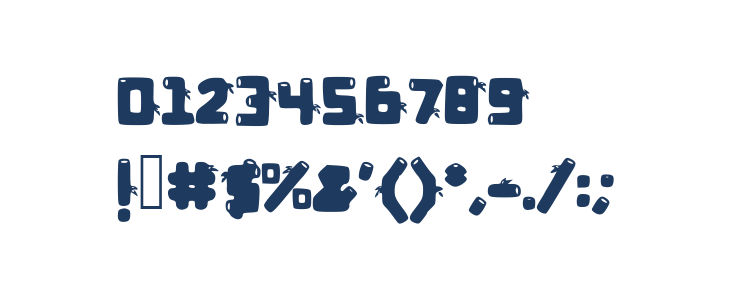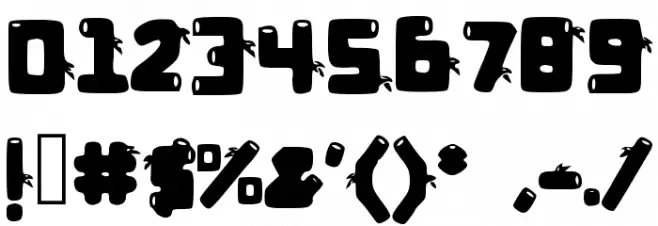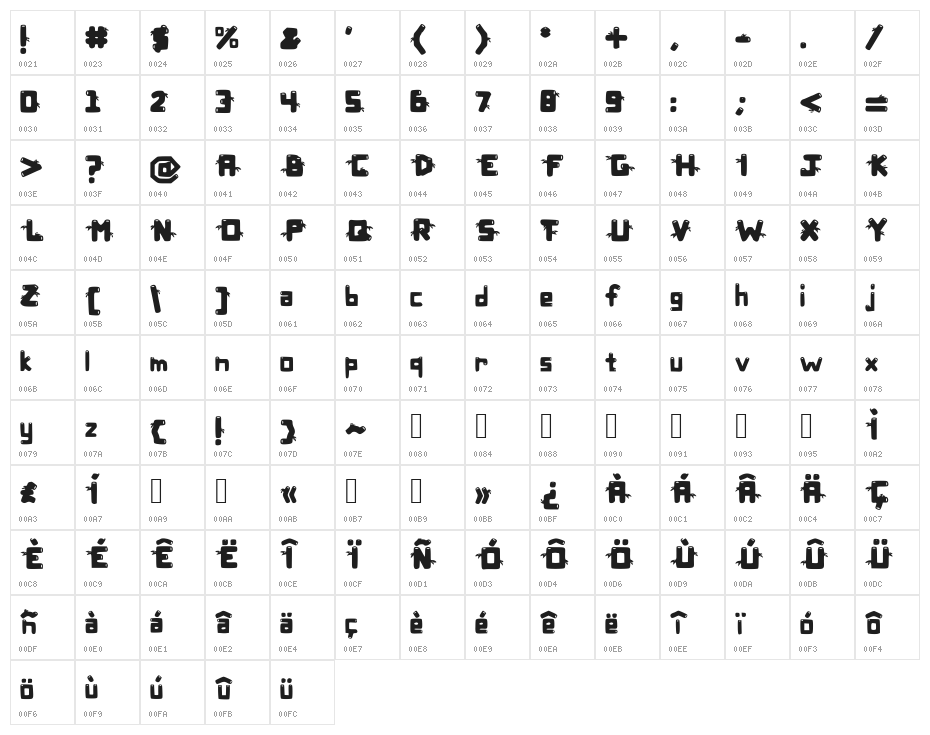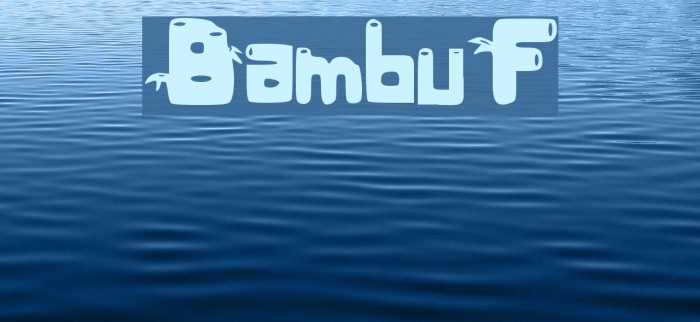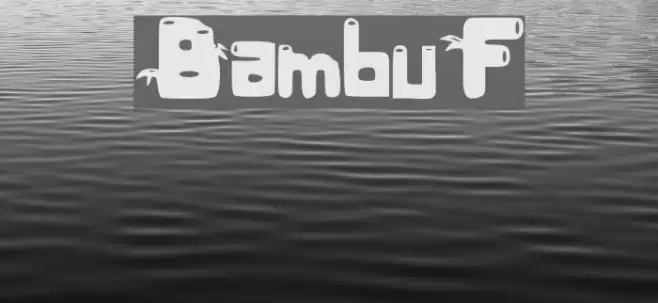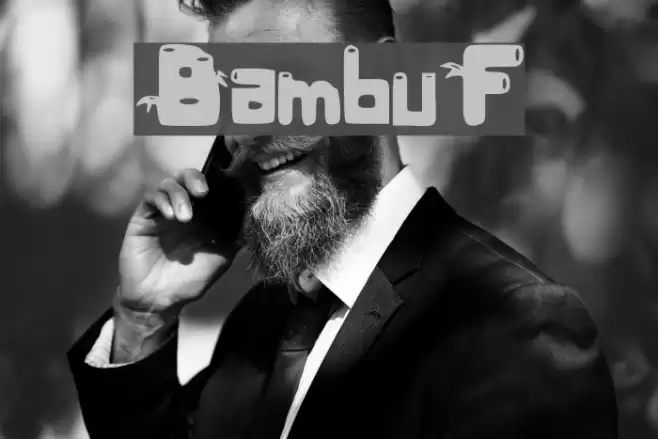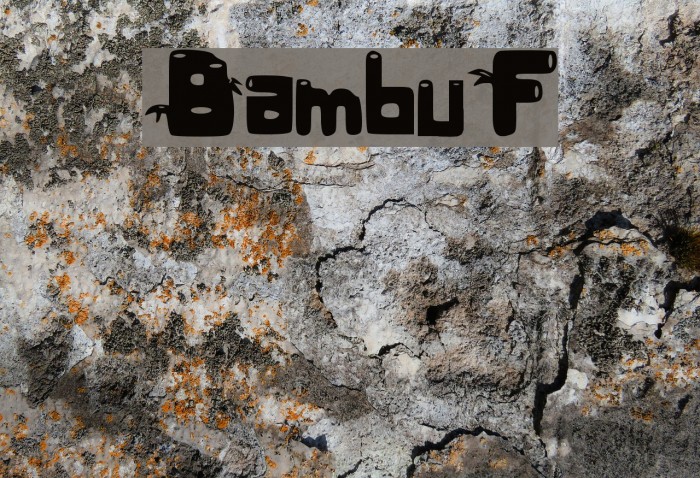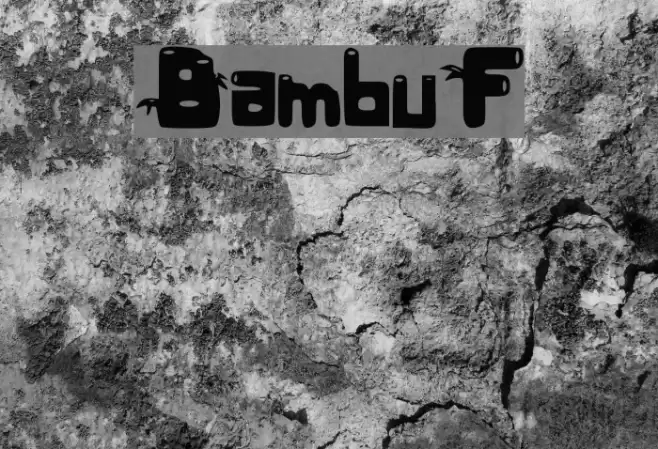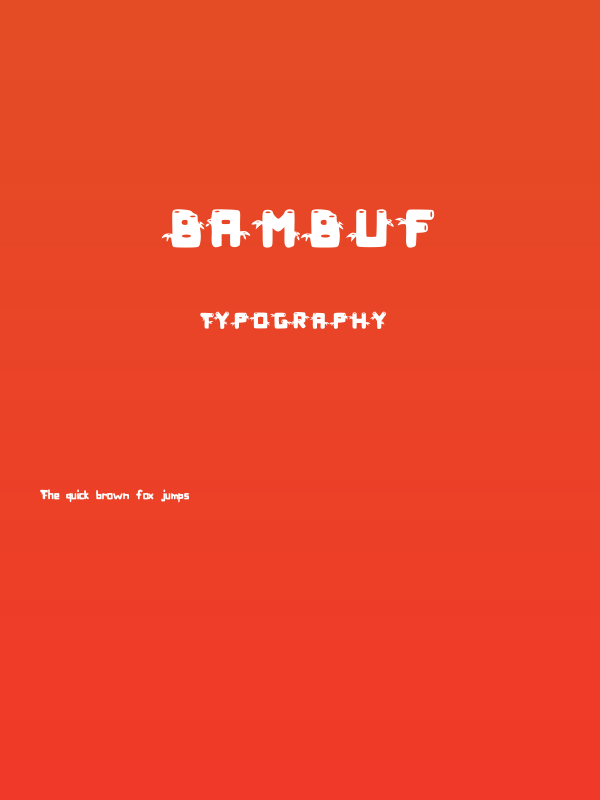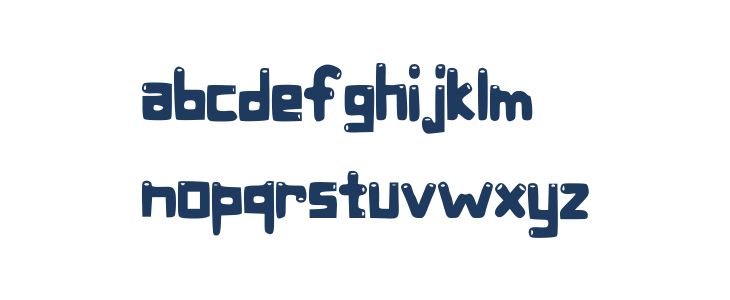
BambuF Font
BambuF Description
This font features a playful and whimsical design, incorporating elements that resemble bamboo shoots or branches extending from the characters. The letters are bold and rounded, with a unique decorative flair that gives each character a distinct personality. The uppercase and lowercase letters maintain a consistent style, with the lowercase being slightly more compact. Numbers and special characters follow the same thematic design, ensuring a cohesive look across all elements. This font is ideal for projects that require a fun and engaging visual impact.
| Proposed Projects | Ideal for children's books, playful branding, eco-friendly product packaging, and creative posters. |